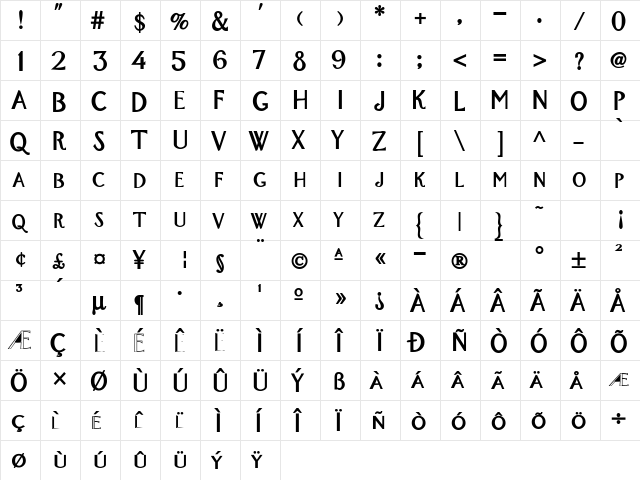
CadizSCapsSSK Bold
Design Context for CadizSCapsSSK Typeface
CadizSCapsSSK takes a measured approach to typography — its balanced proportions and neutral character make it a reliable workhorse for both digital and print work. The heavy weight commands attention and anchors typographic hierarchies.